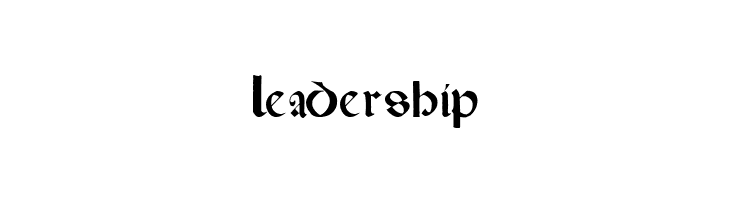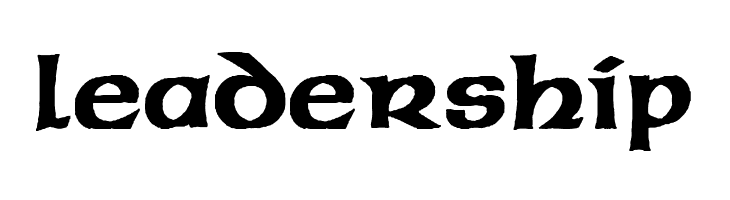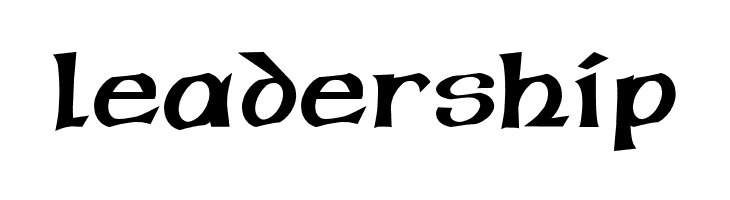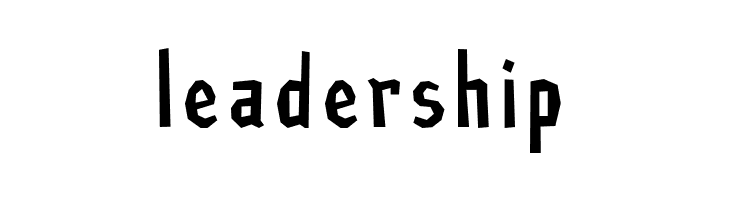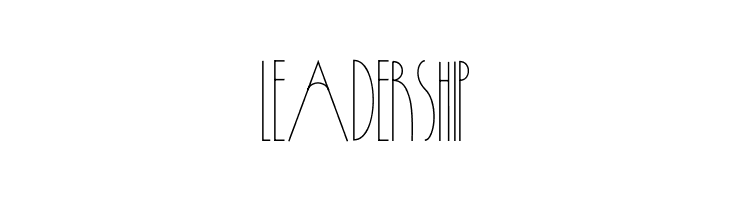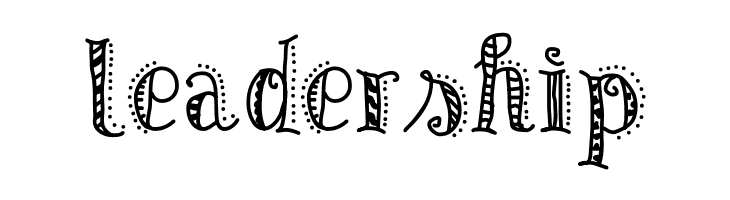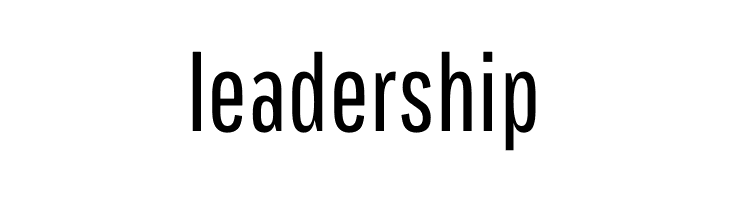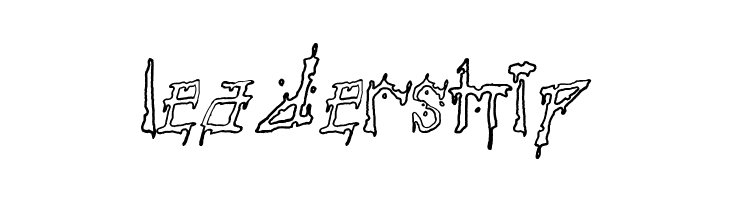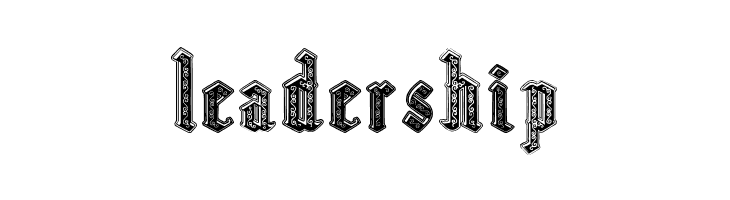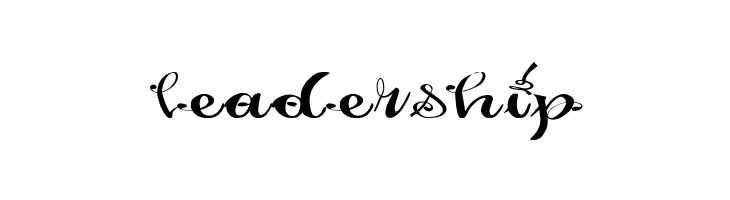
A playful, bold font with rounded edges and a hand-drawn feel.
A fluid, elegant script font with an italic, handwritten style.
A playful, handwritten font with irregular strokes and a casual style.
A playful, casual handwritten font with smooth curves and a friendly vibe.
A playful, casual handwritten font with smooth curves and a natural feel.
A bold, modern font with strong geometric influences and uniform strokes.
A modern, geometric font with rounded edges and balanced proportions.
A playful font with heart-shaped cutouts in uppercase letters, ideal for romantic themes.
A playful, bold font with thick, uneven strokes and a whimsical style.
A playful, bold font with rounded edges and a hand-drawn feel.
A bold, decorative font with letters in flag-like banners, ideal for festive occasions.
A playful, balloon-themed font perfect for festive and joyful designs.
A bold, gothic blackletter font with intricate detailing and sharp, angular strokes.
A bold, gothic-style font with intricate, angular detailing.
A modern, elegant font with tall, thin letterforms and high contrast strokes.
An elegant, elongated font with thin strokes and high contrast, perfect for modern designs.
A lively, handwritten script font with a playful and dynamic style.
A dynamic, calligraphic font with sharp, angular strokes and a slight slant.
A modern, tall, and narrow sans-serif font with a clean and streamlined appearance.
A bold, geometric font with angular, blocky characters.
A bold, angular geometric font with a modern aesthetic.
A whimsical, decorative font with dotted patterns and playful details.
A bold, tribal-inspired font with intricate, swirling patterns.
An ornate Gothic-style font with intricate details and dramatic flair.
A horror-themed font with dripping, jagged edges and a chaotic style.
An ornate and decorative script font with elegant swirls and flourishes.
A decorative font with Celtic knotwork and modern elements.
A Celtic-inspired font with ornate uppercase and bold lowercase letters.
A decorative Celtic-inspired font with intricate patterns and knotwork.
A whimsical, decorative font inspired by vintage circus posters.
A decorative, gothic-style font with intricate flourishes and high contrast.
An ornate, decorative script font with intricate swirls and flourishes.
An ornate Gothic font with intricate curls and flourishes.